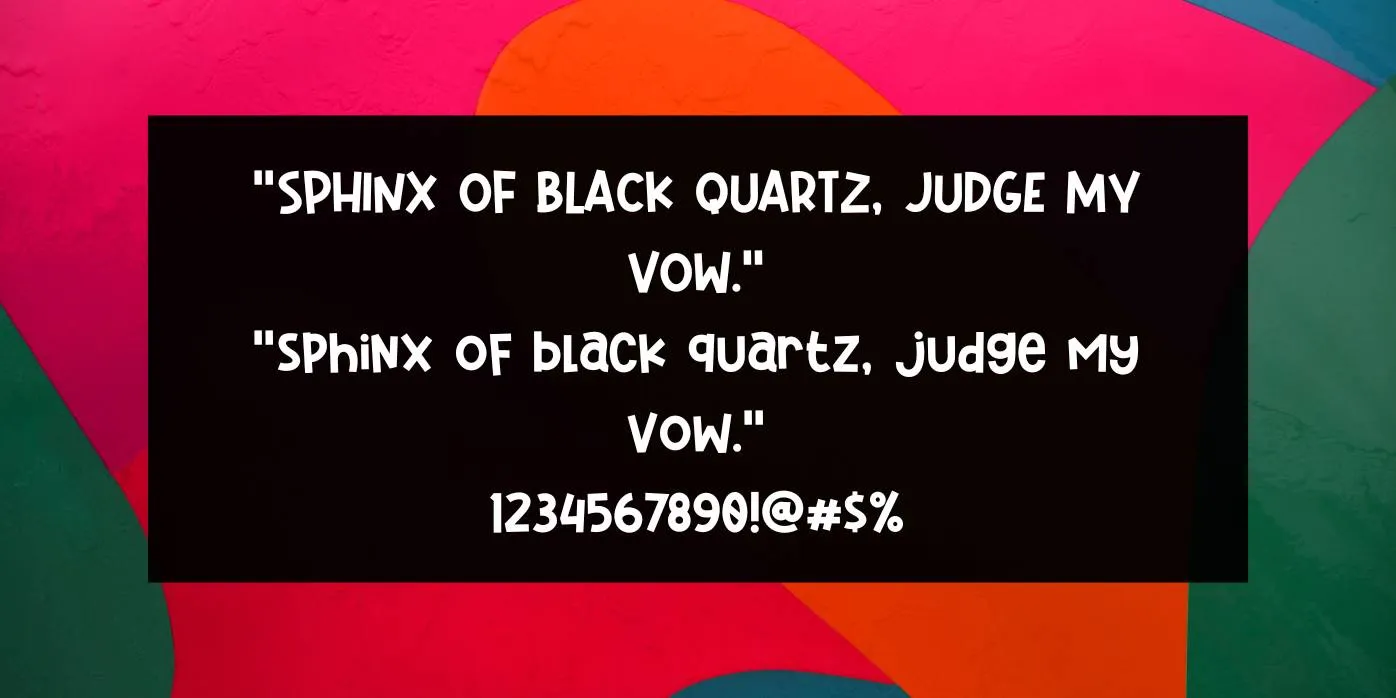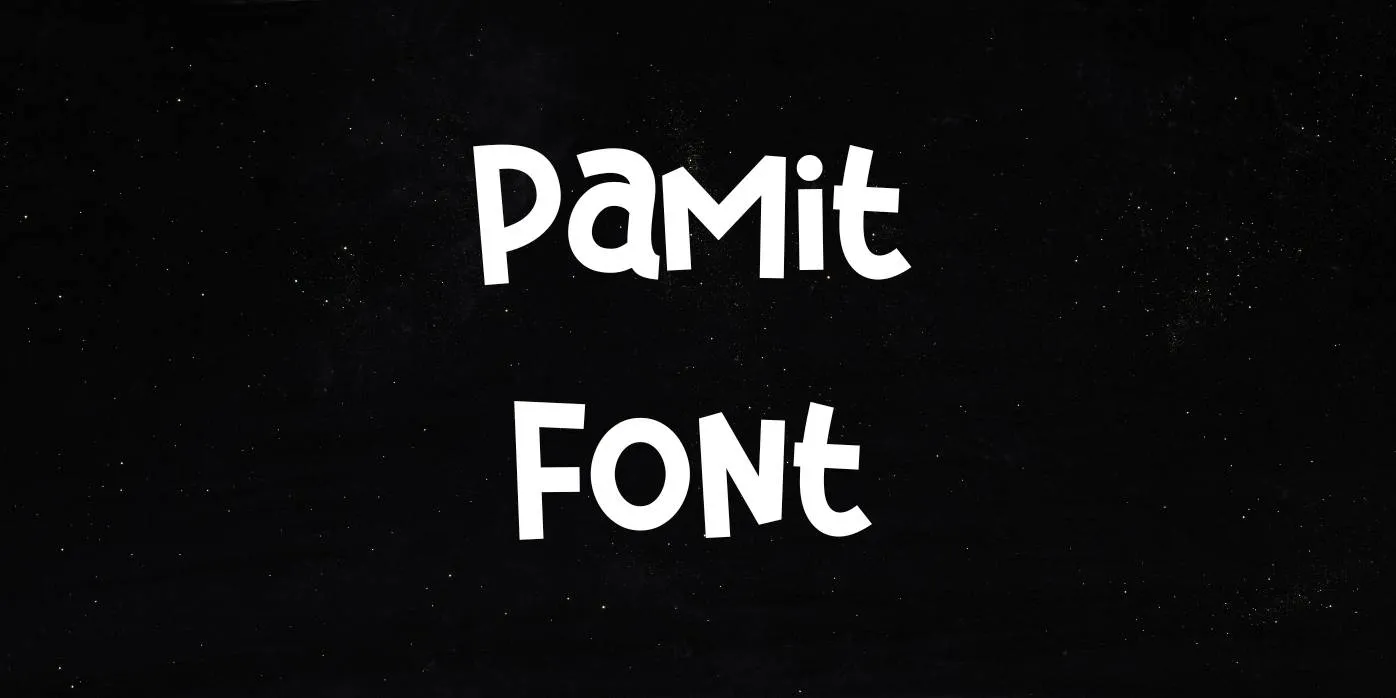
Pamit Font
Pamit Font is a cartoon-type texture created by the Khurasan. The characters of this texture are amazing due to having space in each character. The font style contains uniqer uppercase & lowercase letters, digits, letters, punctuation, and many special letters. The online generator tool is also a facility to generate any kind of text.